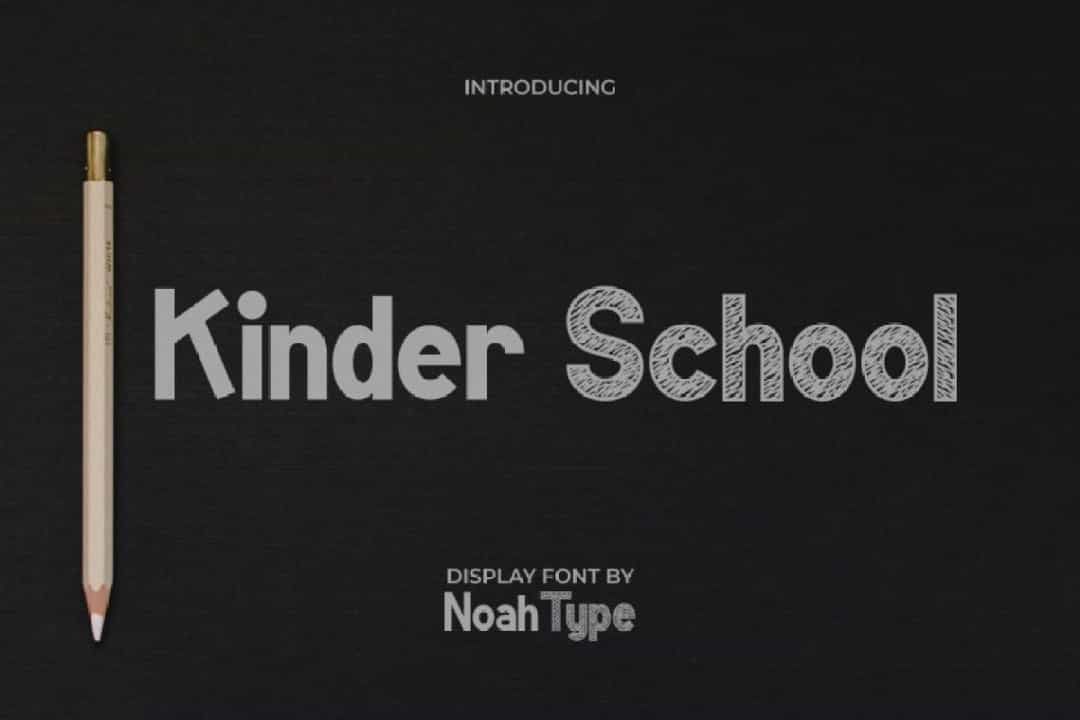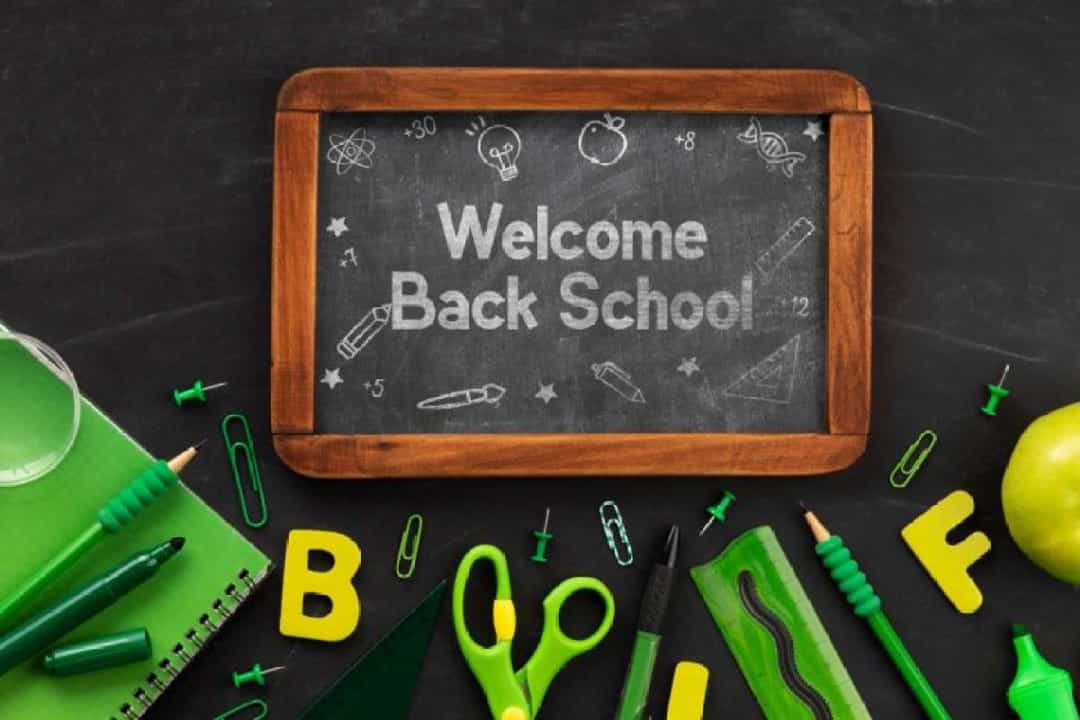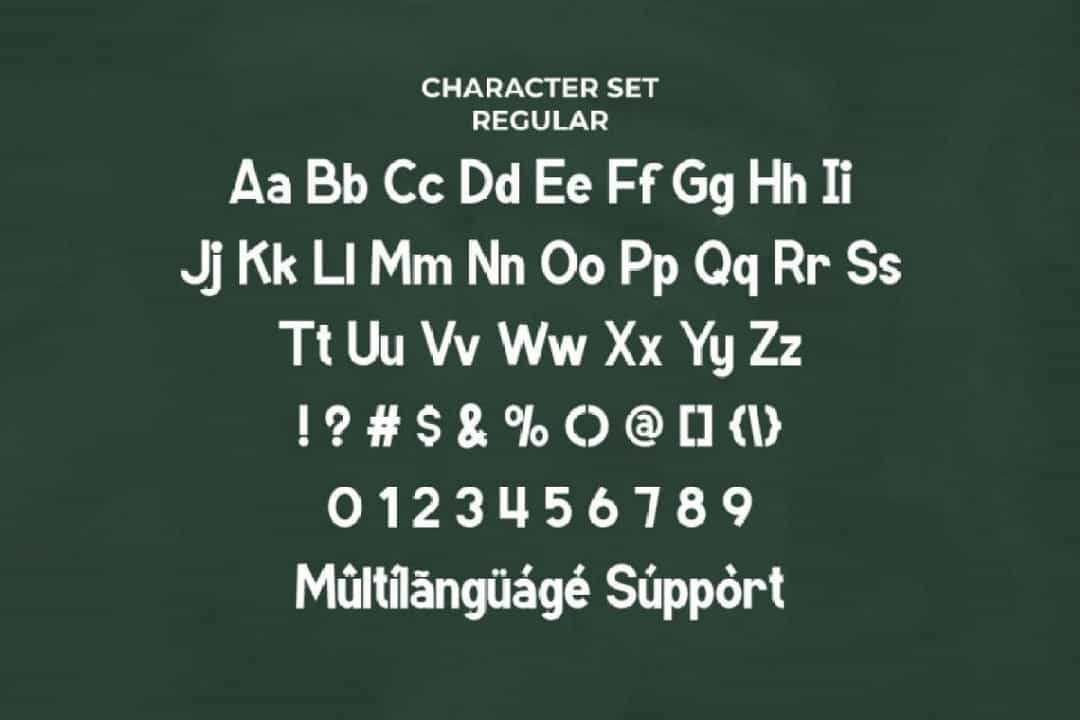
Kinder School is an unicase sans serif display font with sketchy chalk drawings. It comes in two styles; regular clean and sketch style as well as rough sketches for maximum versatility in school projects, classroom toys, children’s items or business use. This font makes an impressionful first impression for your project!